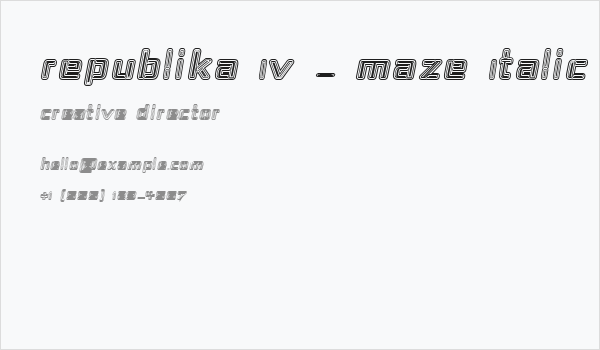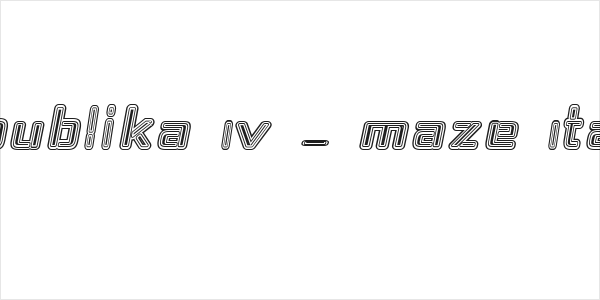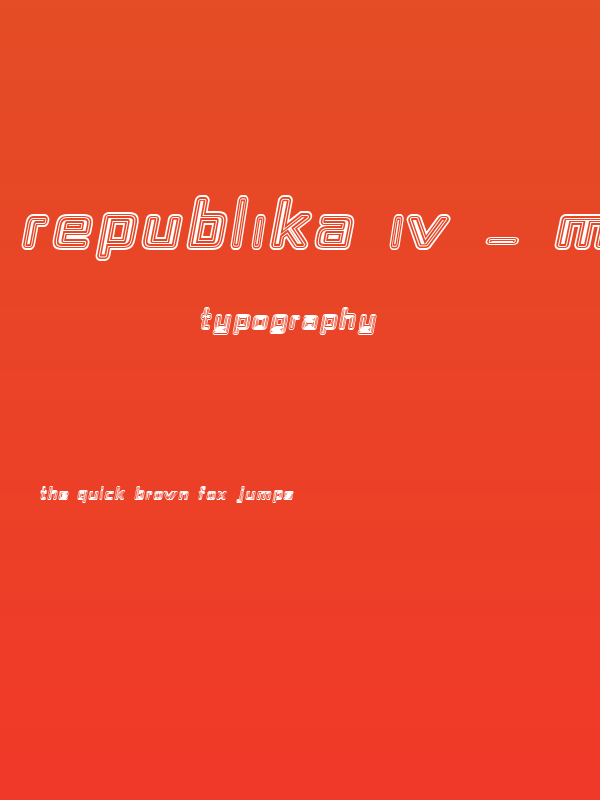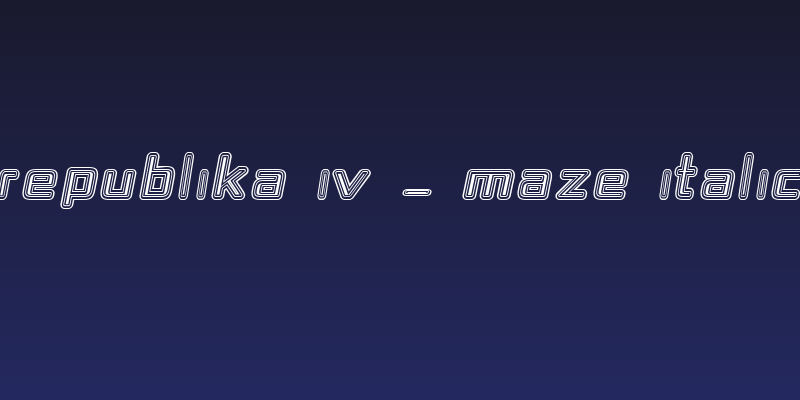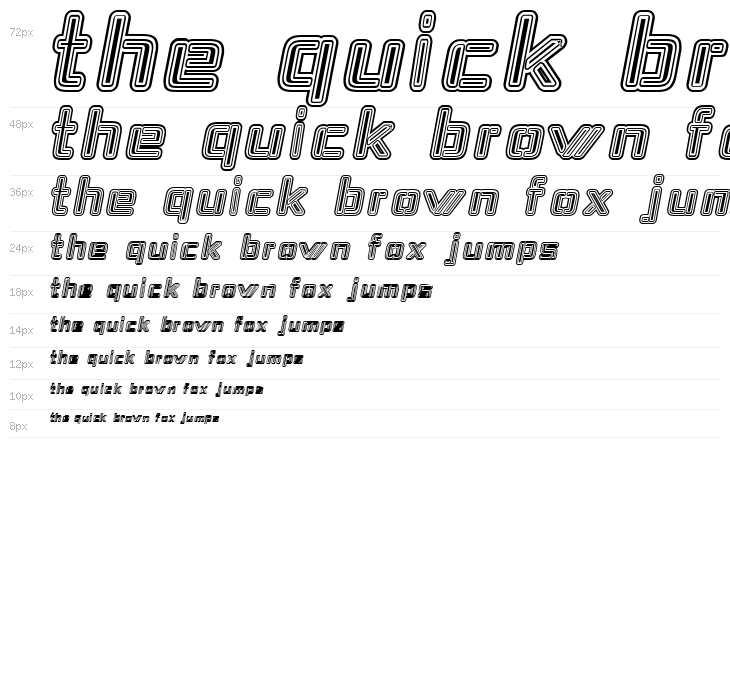
Republika IV - Maze Italic Font
Republika IV - Maze Italic Description
This font features a bold, geometric design with a maze-like pattern that gives it a unique and intricate appearance. The characters are outlined with multiple layers, creating a sense of depth and complexity. The italic style adds a dynamic and forward-leaning aspect to the overall look. The font maintains a consistent width throughout, with rounded edges that soften the otherwise angular design. The numbers and special characters follow the same intricate pattern, ensuring uniformity across all elements. This font is eye-catching and ideal for projects that require a modern and innovative touch.
Proposed ProjectsIdeal for futuristic designs, tech branding, video game titles, and creative posters.